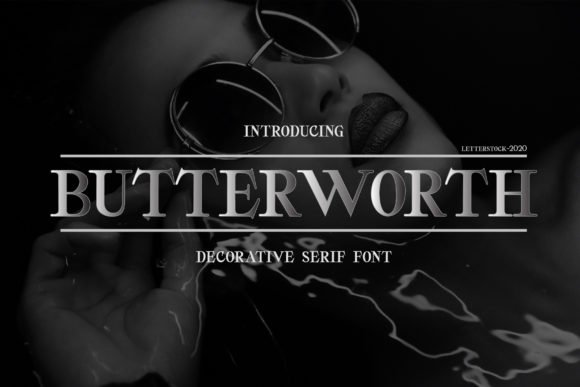
Discover the Timeless Charm of the Butterworth Font
Have you ever stumbled upon an old book or a vintage poster and felt an instant rush of creativity? The worn pages, the faded ink, and the elegant typography all come together to transport you to a bygone era. It’s moments like these that inspire us to create something truly unique and authentic.
Enter the Butterworth Font, a bold and elegant serif font that embodies the essence of classic typography. Designed to evoke the feeling of aged paper and worn leather, this font is perfect for any project that requires a touch of sophistication and timelessness. Whether you’re designing a logo, a product packaging, or a quote, the Butterworth Font is a valuable addition to your toolkit.
Key Features of Butterworth Font
- Unique Characteristics: The Butterworth Font is known for its elegant and refined design, with subtle flair and swashes that add a touch of sophistication to any text.
- Font Style: The Butterworth Font is available in a range of styles, including Regular, Italic, Bold, and Bold Italic, allowing users to choose the perfect look for their design.
- Scalability: The font is designed to be highly scalable, making it suitable for use in a variety of contexts, from small text to large headings and titles.
Butterworth Font Review
As a designer, I had the chance to work with the Butterworth font and here’s my honest review.
- Beautiful, elegant design: Butterworth font has a classic and sophisticated look that can add a touch of luxury to any project.
- High legibility: The font is easy to read, even at smaller font sizes, making it perfect for body text.
- Neutral style: The font’s neutral style makes it versatile and can be used in a wide range of projects, from corporate to creative.
- Limited language support: The font doesn’t have support for many languages, which can be a limitation for projects that require multilingual support.
- Not ideal for bold text: While Butterworth font is great for body text, it can look a bit clumsy when used for bold or headings text.
Overall, I think Butterworth font is a great choice for projects that require a classic and sophisticated look. While it has some limitations, it’s a solid option for designers who want a high-quality font that’s easy to read.
Butterworth Font Practical Application Guide
Tip: Use the Butterworth font for titles and headings to add a touch of elegance to your designs.
Tip: Use the Butterworth font for custom logos, graphics, and other design elements to add a unique touch.
Tip: Use the Butterworth font for presentations and documents to add a touch of sophistication.
The Butterworth font is ideal for:
- Printed materials, such as business cards and brochures
Remember to use the Butterworth font in conjunction with other design elements to create a cohesive and visually appealing look.